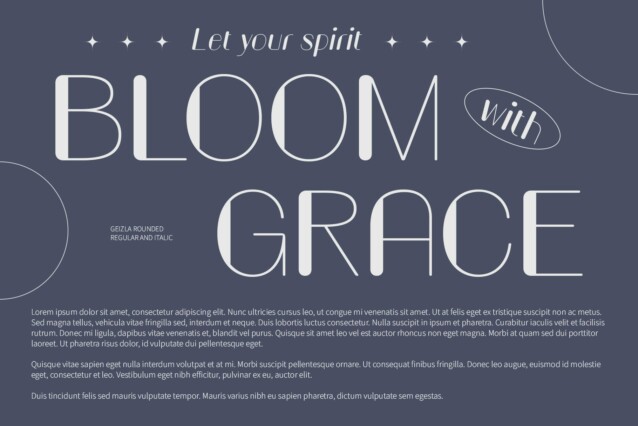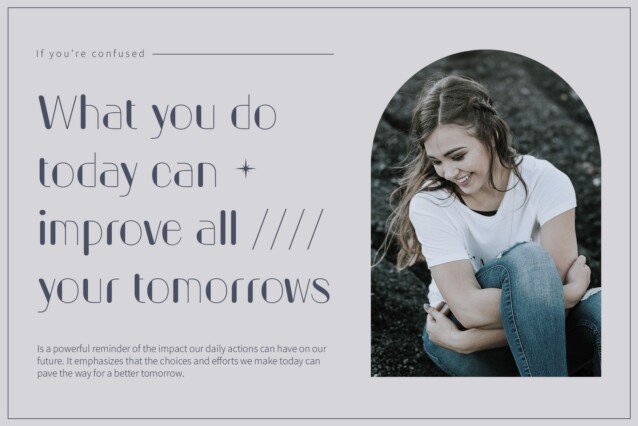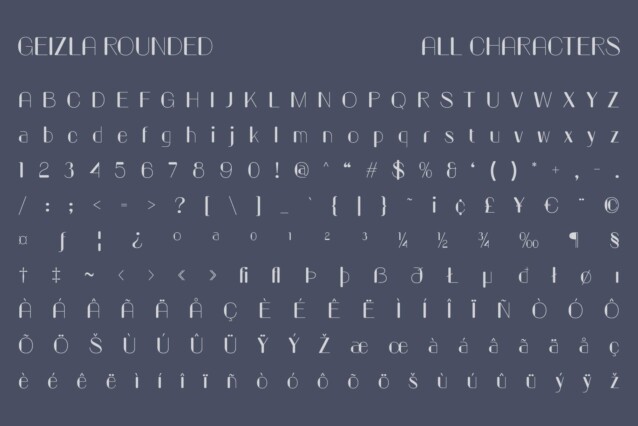
Geizla Rounded Font
Geizla Rounded Font is a modern sans-serif font that beautifully combines clean, contemporary design with soft, rounded shapes. Its smooth lines and rounded letterforms provide a friendly yet sophisticated appearance, making it an excellent choice for a wide range of applications.